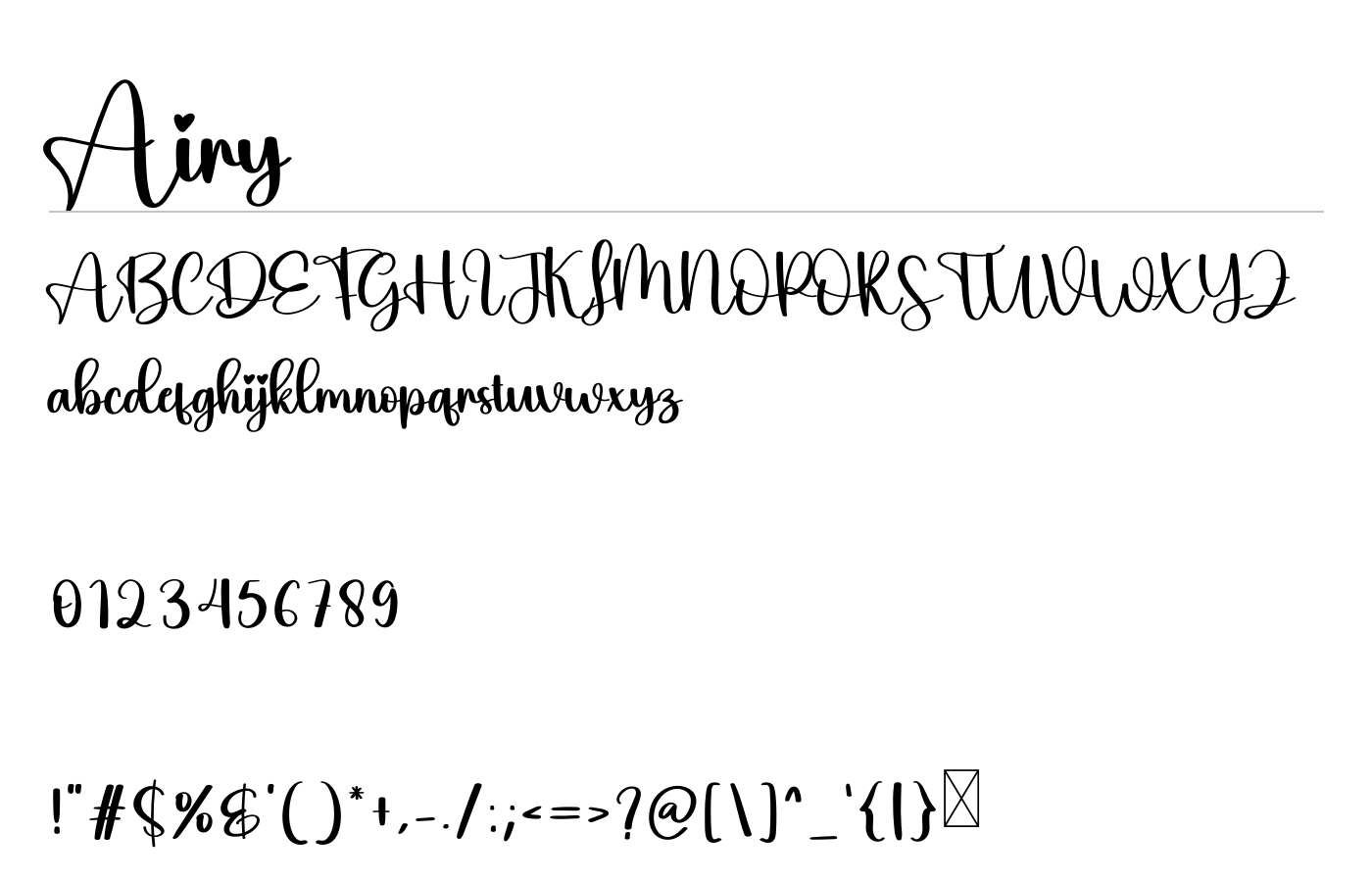
Airy is a playful and charming script font with a handwritten feel, featuring fluid, rounded letterforms and a light to regular weight. Its whimsical touch is highlighted by unique details like the heart-shaped dot on the "i" and lively strokes that convey warmth and friendliness, making it perfect for creative designs, invitations, branding, and casual headlines. This font’s airy and approachable style works well where a personal, friendly aesthetic is desired.
Airy Font